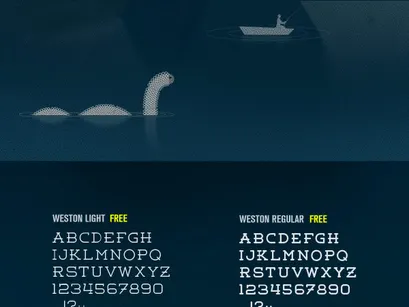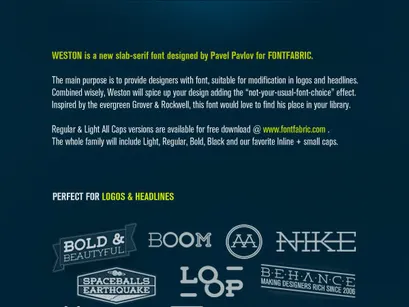
Weston Free Font
WESTON is a new rounded slab-serif font designed by Pavel Pavlov for FONTFABRIC.
The main purpose is to provide designers with font, suitable for modification in logos and headlines. Combined wisely, Weston will spice up your design adding the “not-your-usual-font-choice” effect. Inspired by the evergreen Grover & Rockwell, this font would love to find his place in your library.